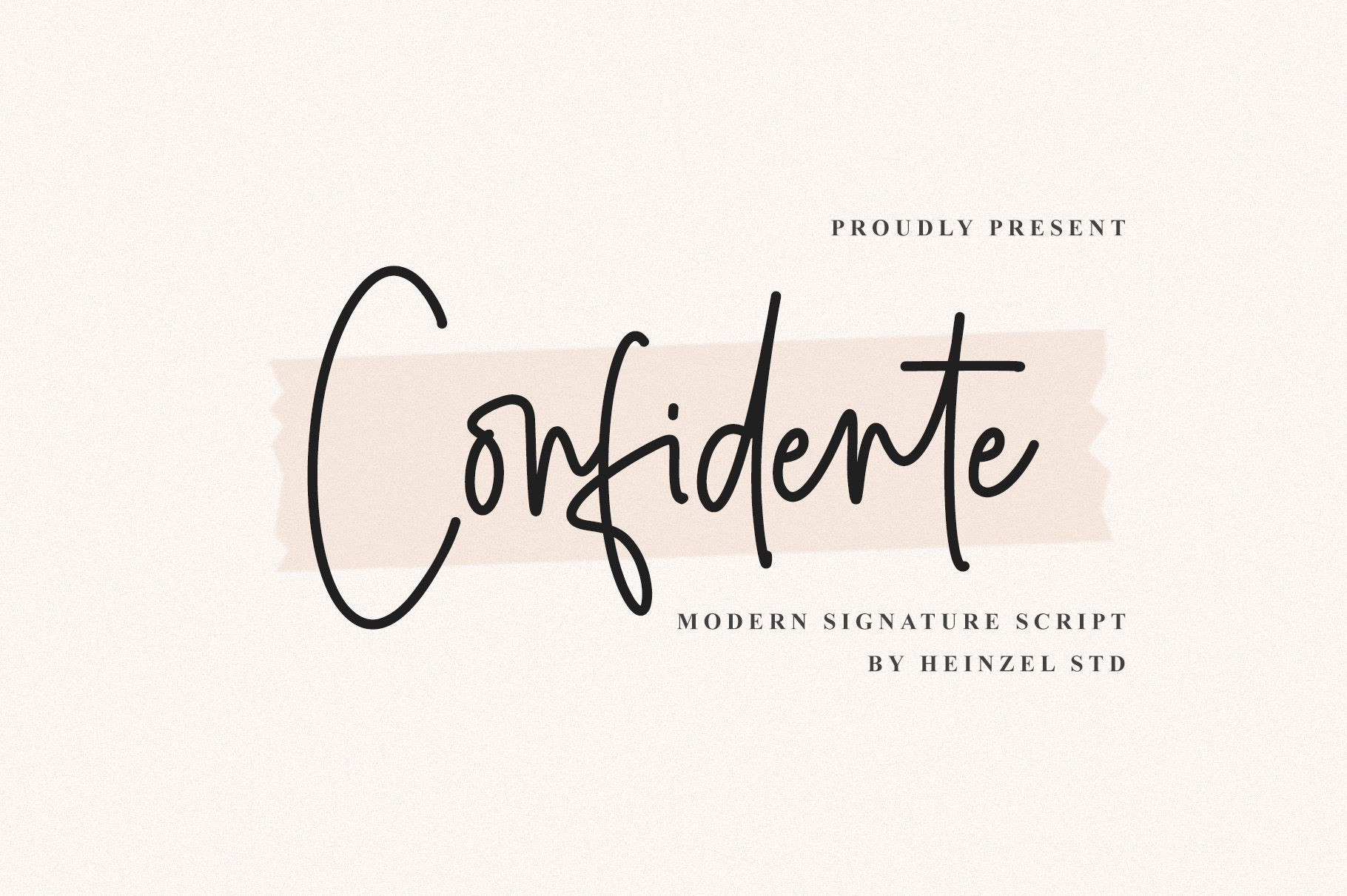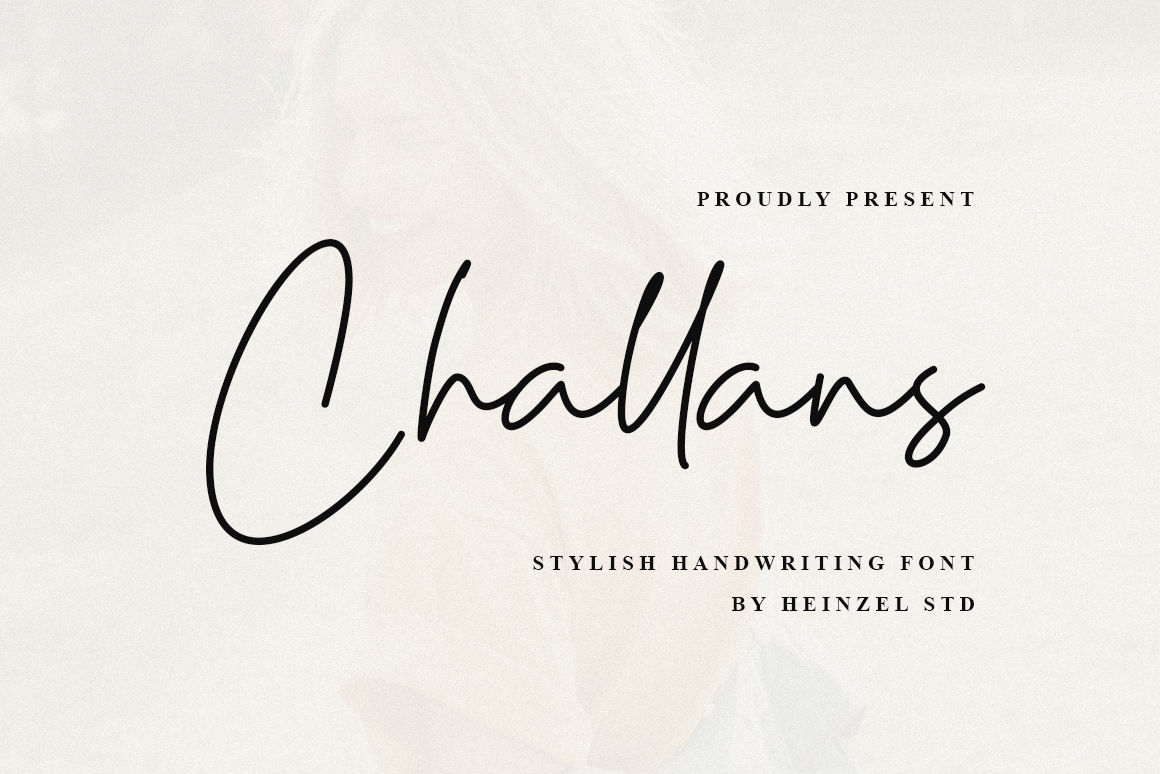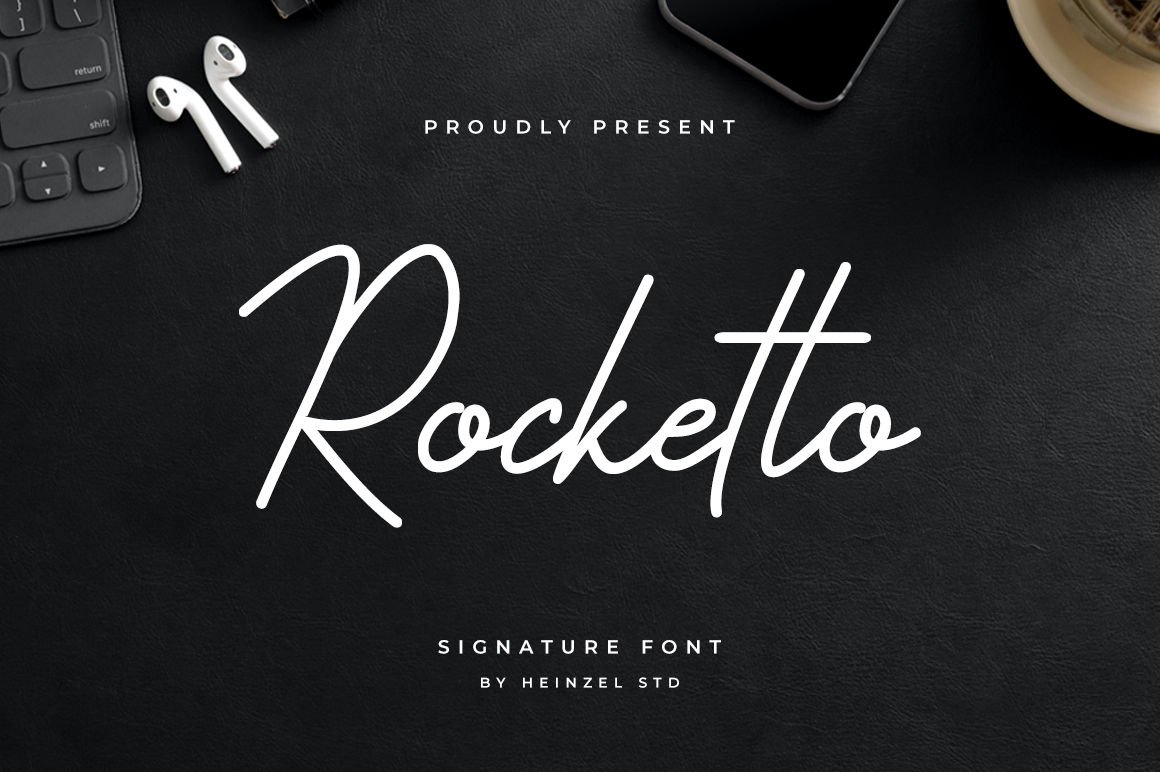
10 Best Signature Font for Graphic Design
Exploring the Art of Signature Fonts in Graphic Design
In the vast realm of graphic design, typography plays a pivotal role in conveying messages, emotions, and brand identities. Among the myriad of font styles available, signature fonts have emerged as a distinctive and stylish choice. These fonts mimic the fluidity and personal touch of a handwritten signature, adding a unique flair to various design projects. In this article, we will delve into the world of signature fonts and explore their significance in graphic design.
What are Signature Font?
Signature font fall under the script font family, aiming to capture the charm of a personal signature. With their flowing and often cursive styles, they bring a human and authentic feel to text, making it stand out
The Appeal of Signature Fonts:
Signature fonts bring a personal and authentic feel to designs, creating a connection between the viewer and the content. Whether used in logos, branding, invitations, or social media graphics, these fonts inject a sense of personality and individuality. Graphic designers often turn to signature fonts to add a human touch to digital creations, breaking away from the uniformity of traditional fonts.
Versatility in Design:
One of the key advantages of signature fonts is their versatility. They seamlessly adapt to a wide range of design projects, from elegant wedding invitations to modern business logos. Designers can choose from a variety of styles, ranging from casual and playful to sophisticated and formal, making signature fonts suitable for diverse applications.
Choosing the Right Signature Font:
Selecting the perfect signature font requires consideration of the overall design theme, target audience, and brand personality. Some signature fonts exude a sense of elegance, while others convey a more relaxed and approachable vibe. Designers should also ensure that the chosen font is legible and complements the overall aesthetic of the project.
Popular Choices:
1. Better Grade
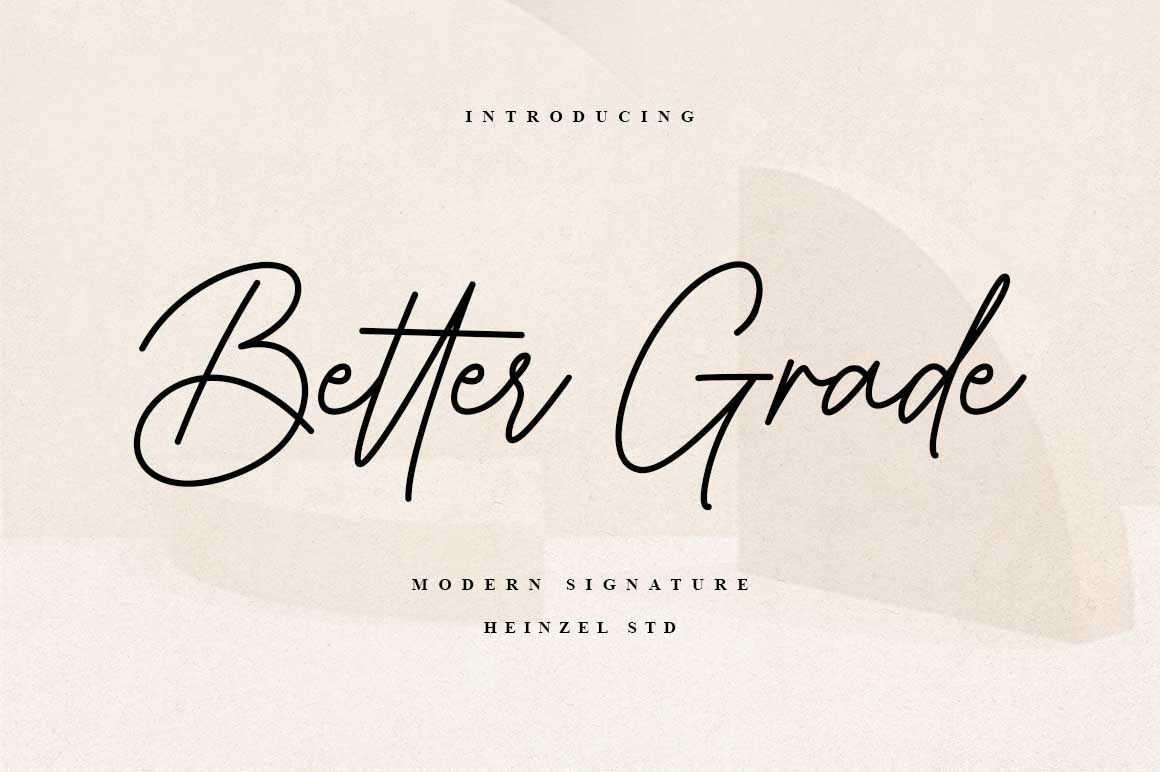
Better Grade Font, a sophisticated signature typeface that adds an air of elegance to your design projects. With its refined letterforms and impeccable strokes, Better Grade Font is the perfect choice for creating a personalized and luxurious touch.
Crafted with precision and attention to detail, Better Grade Font captures the essence of a handcrafted signature. Its fluid curves and distinctive flourishes create a sense of exclusivity and sophistication, making it ideal for branding, logos, wedding invitations, thank you cards, quotes, greeting cards, business cards, social media posts, magazines, marketing materials, and more.
2. Monstera Jam
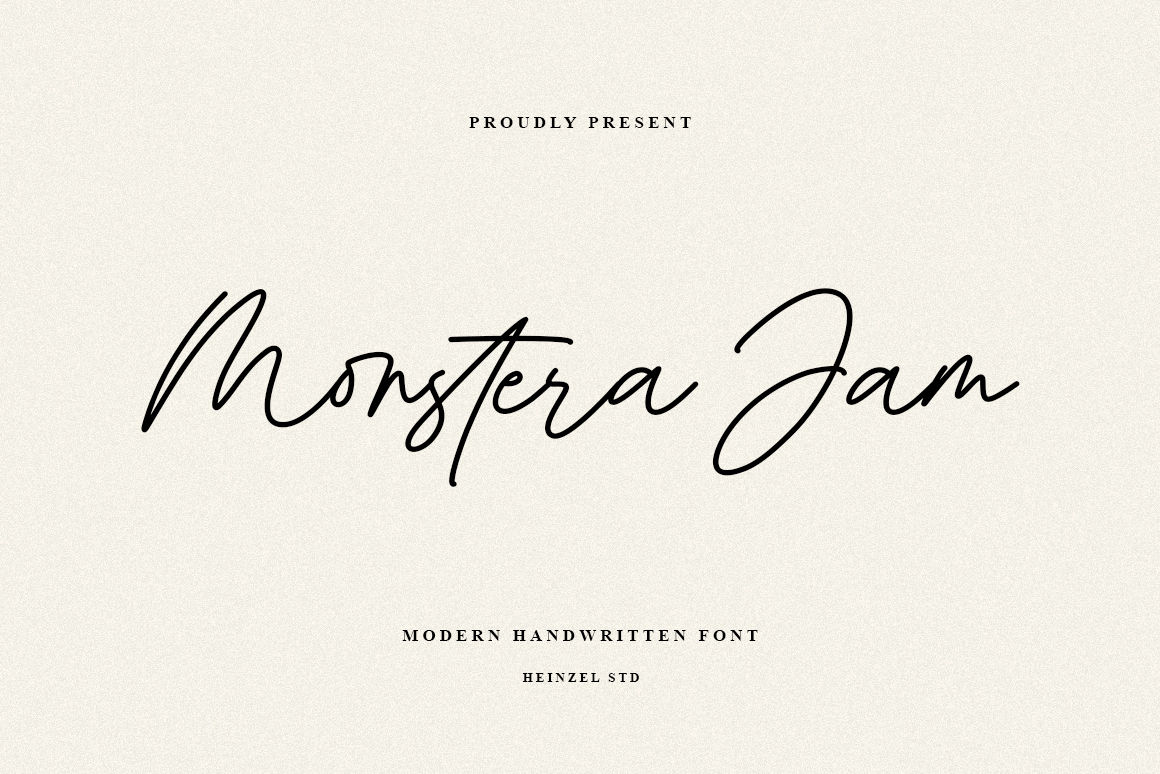
Monstera Jam is a modern signature font, described by an elegant touch, perfect for your favorite projects. It looks stunning on wedding invitations, thank you cards, quotes, greeting cards, logos, branding, business cards, social media posts, magazines, marketing materials, and every other design that needs a handwritten touch. Fall in love with its incredibly distinct and timeless style and use it to create spectacular designs!
3. The Chairman
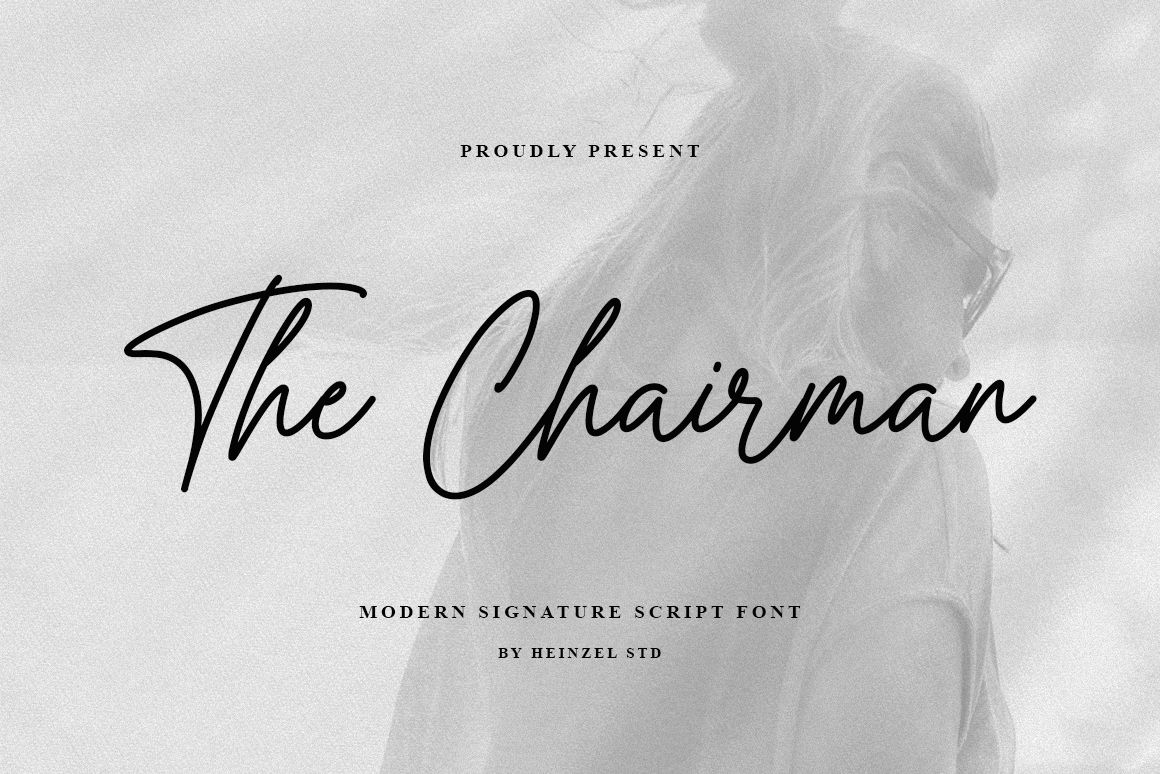
The Chairman Signature Font is a sophisticated and luxurious typeface designed to exude an air of elegance and prestige. This carefully crafted font captures the essence of a distinguished chairman’s signature, making it perfect for high-end branding, upscale invitations, and exclusive events. With its timeless appeal, The Chairman Signature Font adds a touch of refinement to any project it graces.
4. Bulgary Rose
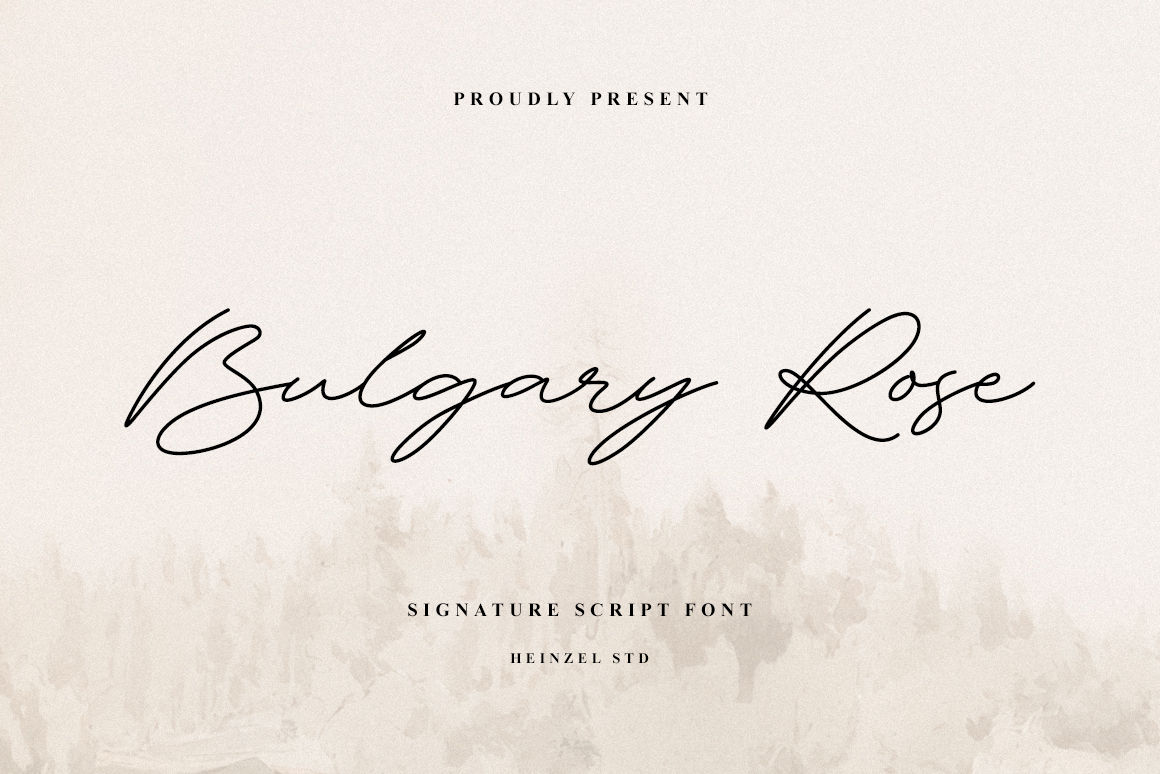
Bulgary Rose, a captivating handwritten script font that adds a touch of personal charm to your design projects. With its authentic and organic letterforms, this font brings a natural and warm feel to your work.
Crafted with meticulous attention to detail, Bulgary Rose captures the essence of genuine handwriting. Its fluid strokes and gentle curves create a sense of authenticity, making it perfect for personal branding, invitations, and heartfelt projects.
5. Richford
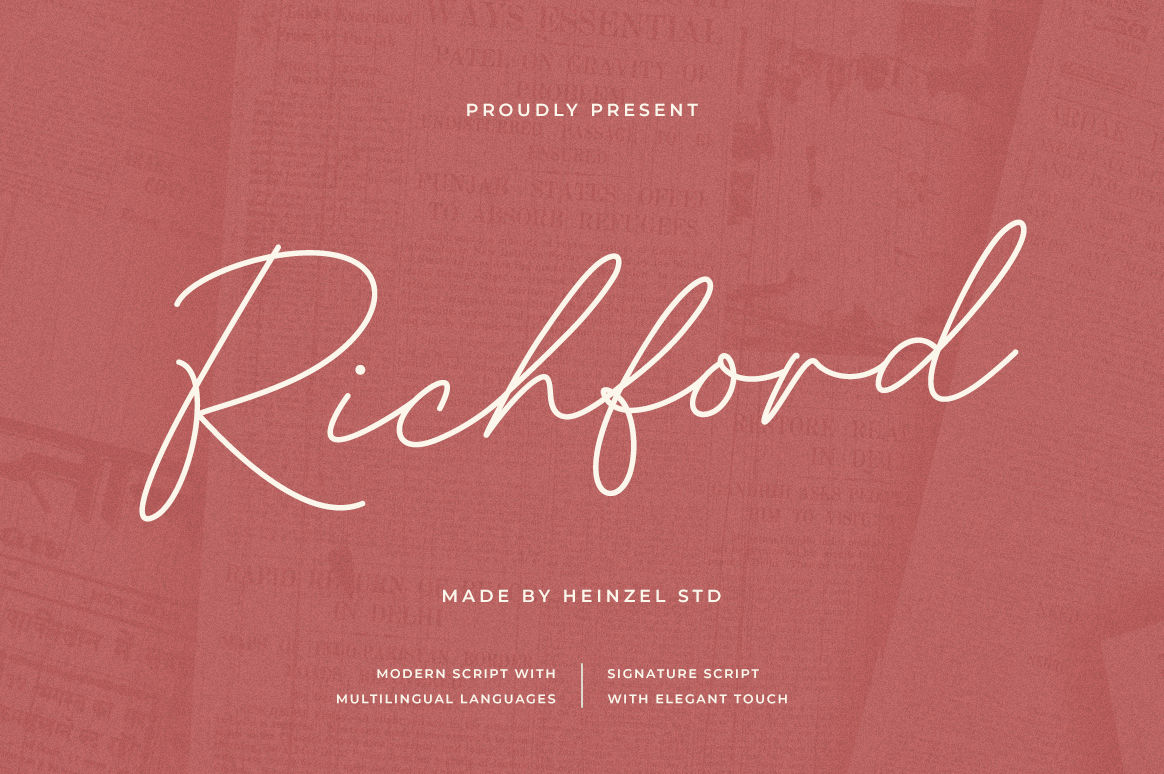
Richford Font, a sophisticated signature typeface that adds an air of elegance to your design projects. With its refined letterforms and impeccable strokes, Richford Font is the perfect choice for creating a personalized and luxurious touch.
Crafted with precision and attention to detail, Richford Font captures the essence of a handcrafted signature. Its fluid curves and distinctive flourishes create a sense of exclusivity and sophistication, making it ideal for branding, logos, wedding invitations, thank you cards, quotes, greeting cards, business cards, social media posts, magazines, marketing materials, and more.
6. Present Anthem
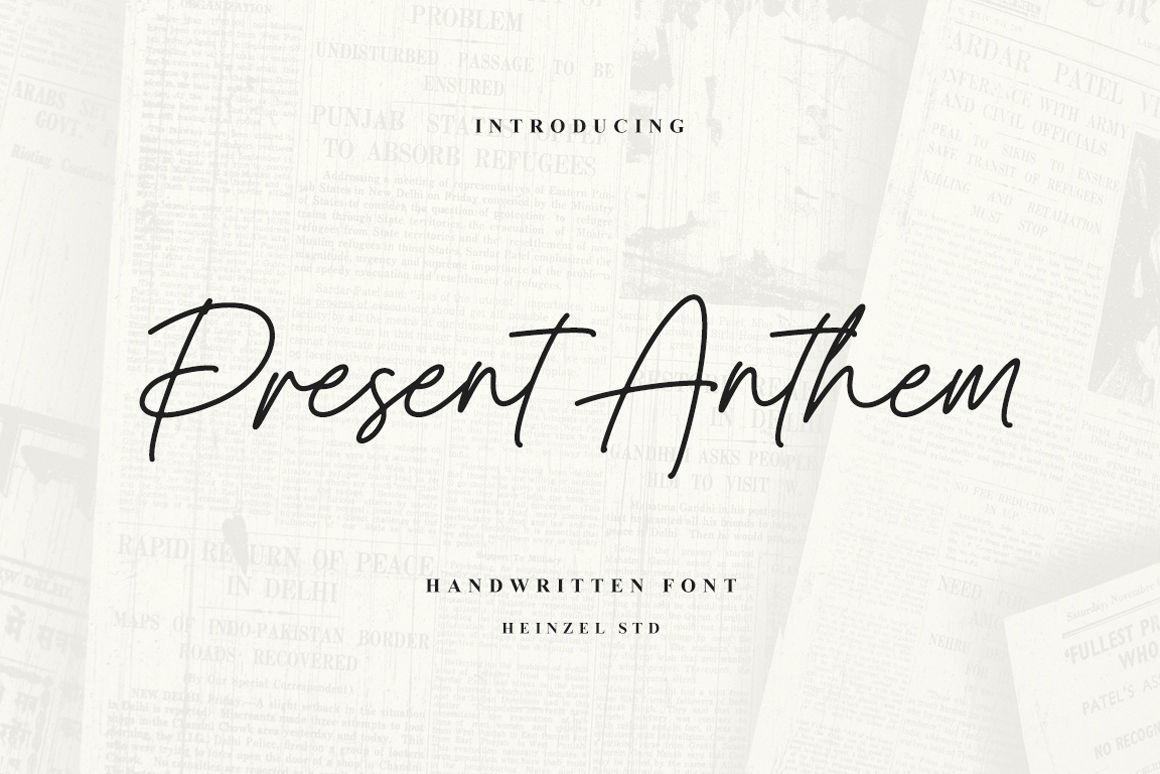
Present Anthem is a modern handwritten script font, described by an elegant touch, perfect for your favorite projects. It looks stunning on wedding invitations, thank you cards, quotes, greeting cards, logos, branding, business cards, social media posts, magazines, marketing materials, and every other design that needs a handwritten touch. Fall in love with its incredibly distinct and timeless style and use it to create spectacular designs!
Signature font bring a touch of artistry to graphic design projects, offering a simple way to add a personal and authentic feel. Whether you’re creating a logo, invitation, or social media post, experimenting with signature fonts can be a fun and effective way to enhance your designs. So, dive into the creative possibilities, and let signature fonts be the subtle yet impactful element in your next graphic design endeavor.